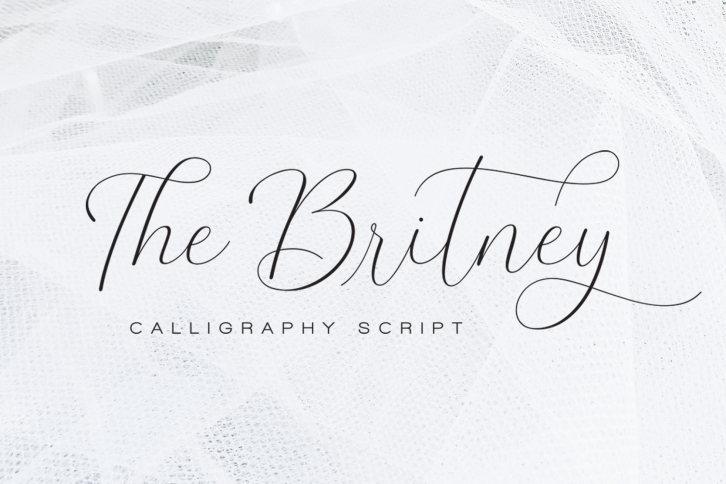
The Britney is a trendy and unique font with an authentic style. It was designed by dharmas and it's a great choice for creative people who need such a font. It was released on March 27, 2019 and the file size is 13.11 MB. The Britney will add an organic vibe to any design idea!